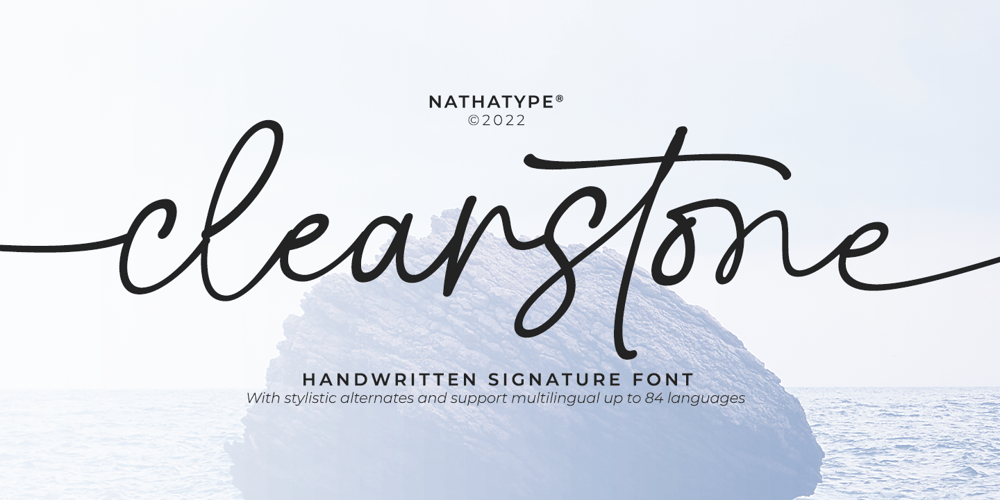
Clearstone Font Family was designed by Donis Miftahudin and published by Nathatype. Clearstone contains 1 styles and family package options. Your corporate design project is one of the factor of the business where you can attract the customers and get their first impression. Make the moment count by making it as stand out as your business. With Clearstone, you can showcase a delightful yet fancy viewing experience that may powerfully highlight your values and communicate well with your customers. Clearstone is a script font that resembles the actual handwriting style. This font is elegant, readable, and has a timeless quality that never goes out of style. Furthermore, this awesome font has fascinating features that allows you maximize your design.Features: Stylistic Sets Ligatures Multilingual Supports Numerals and Punctuations PUA Encoded It is perfect to be used for many design projects, such as poster, logo, book cover, branding, heading, printed product, merchandise, quotes, social media campaign, etc. Learn more about how to use it by seeing the font preview.Thank you for purchasing our fonts. Please don’t hesitate to contact us, if you have any further question or issues. We’re happy to help. Happy Designing.